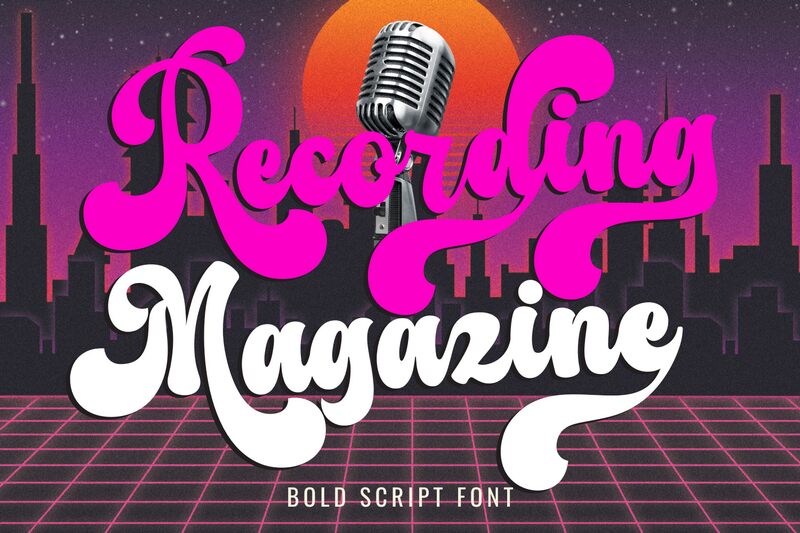
Recording Magazine, designed by 177Studio, captures the free-spirited essence of the 60s and 70s with its groovy brush style. The font's bold strokes are reminiscent of hand-painted signage and album covers from an era that celebrated artistic expression and musical innovation. Each letter flows with an effortless grace, suggesting a sense of movement and rhythm that is both captivating and expressive.
The font's distinctive flair makes it ideal for projects that require a touch of retro charm or a nod to musical heritage. Whether it's gracing the cover of an indie music album, headlining a concert poster, or setting the scene for a vintage-themed event, Recording Magazine stands out as an audacious choice that commands attention while evoking nostalgia.